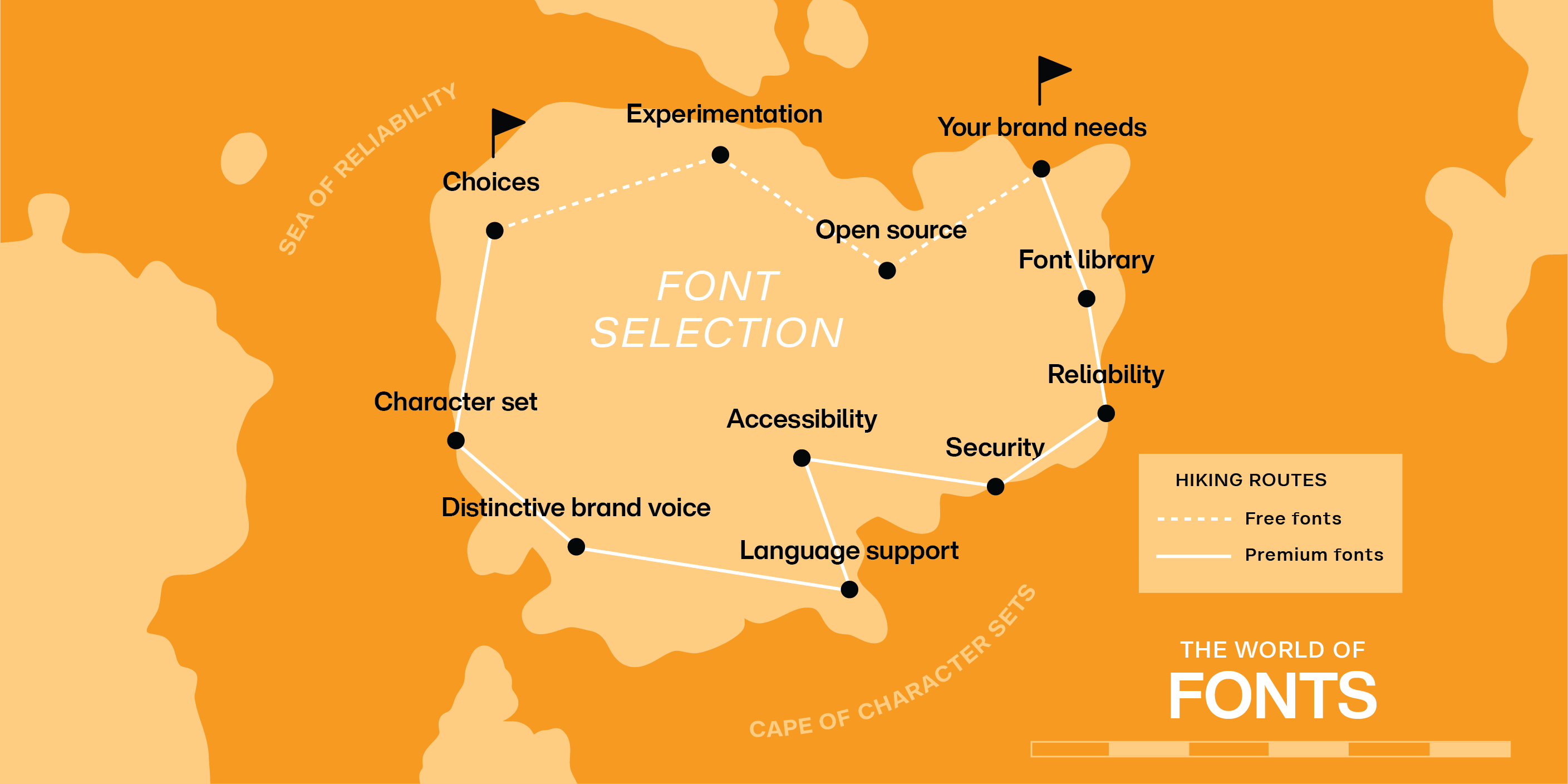
Fonts: To Free, or Not to Free?
“ When you factor everything in, paying for fonts can sometimes end up costing you less – be it in terms of time, money, or even worry – while often leading to a higher ROI. ”
Fonts: To free or not to free?
With so many fonts available for free, why should you ever pay for one?
Free vs “free.”
Free can mean several things. Google Fonts are truly free for anyone to download and use. Adobe includes fonts in its Creative Cloud subscription. And then there’s all the sites offering stolen or counterfeit versions of real fonts for “free.”
Ask yourself…
Do I need a distinctive brand voice?
Bake sale vs. startup brand; overused free fonts start to look generic and don’t grab/hold your customers’ attention. And more than that, they make it hard to stand out: if hundreds of companies, websites, and brands are using the same fonts as you, your brand identity probably isn’t grabbing potential customers’ attention.
Do I need a robust character set?
The character sets found in free fonts are often quite basic. This is perfectly fine for a one-off project or something simple, but really quite limiting when you start to think about your brand ecosystem as a whole.  For anything beyond a basic project, it’s worth shopping for typefaces with comprehensive character sets so you’re sure to end up with exactly what you need for your project.
Do I need language support?
Many free fonts don’t support certain alphabets, which means you need to spend more time finding suitable alternatives and risks leaving your international brand identity slightly splintered. Again, it’s worth shopping for typefaces with advanced language options if your needs are international.
Do you need reliable fonts?
Open-source fonts, even from the most reputable libraries, can be changed, removed, or deleted at any time. This means that if you happen to be using a font from one of these libraries, then you’re at risk of your fonts “breaking” at any time. Also, depending on the source, free fonts can be sketchy. Google & Adobe are fine, of course, but buyer beware of other sources and the issues they can come with… malware, counterfeit fonts, and so forth.
Do I need to experiment with fonts before committing?
One of advantages of free fonts is that you don’t have to buy them to try them. But what if you’re happy to pay for a font but don’t know which one you want? Font providers like Monotype Fonts offer a great middle ground by giving creative teams all that flexibility built into a library of high-quality fonts. Designers can experiment and prototype endlessly with any font in the library, making it likelier that they’ll find the perfect font for the project at hand. Teams only need to pay for the fonts that are put into production.
Bottom line – free is fine, just not all the time or for every project. The decision depends on the specific needs and priorities of your team and the projects they’re working on. Just remember, that just because it says “free” doesn’t mean it necessarily is. And when you factor everything in, paying for fonts can sometimes end up costing you less – be it in terms of time, money, or even worry – while often leading to a higher ROI.